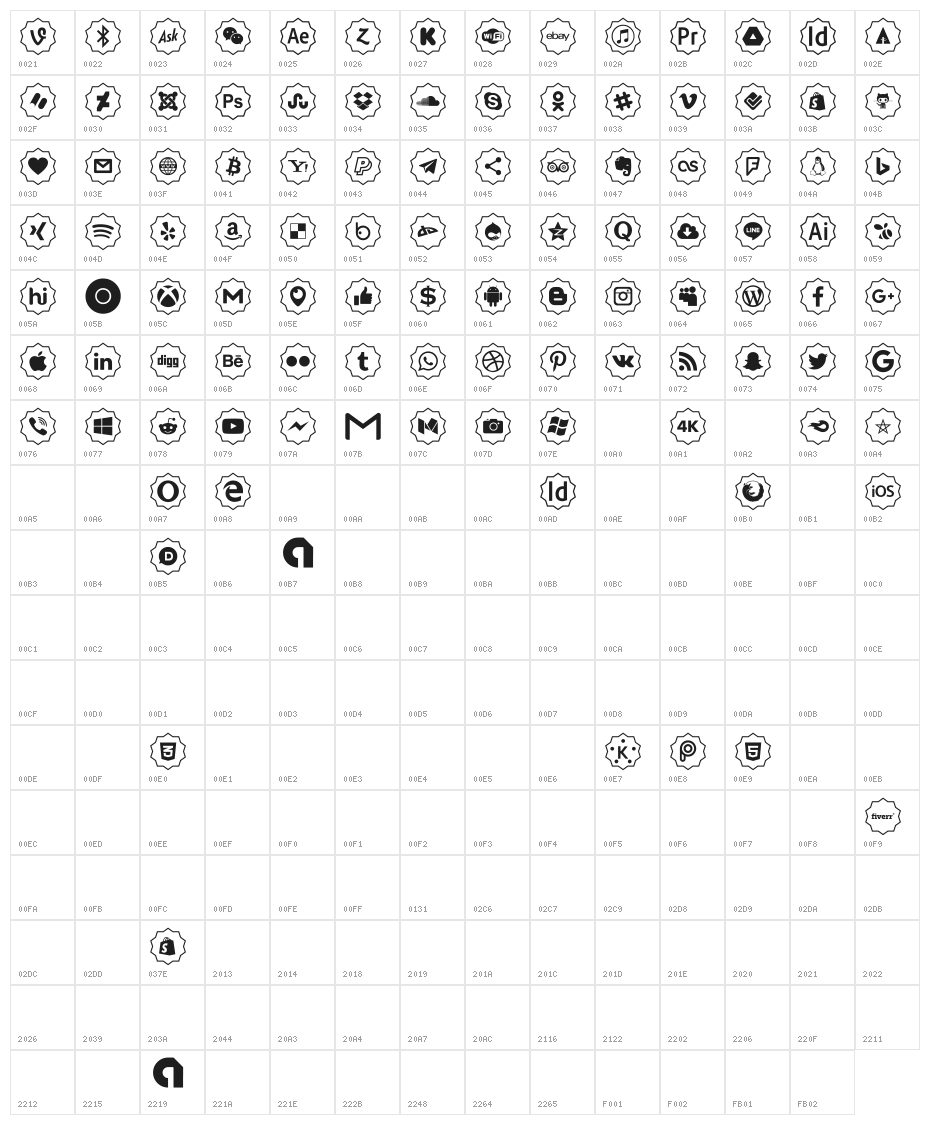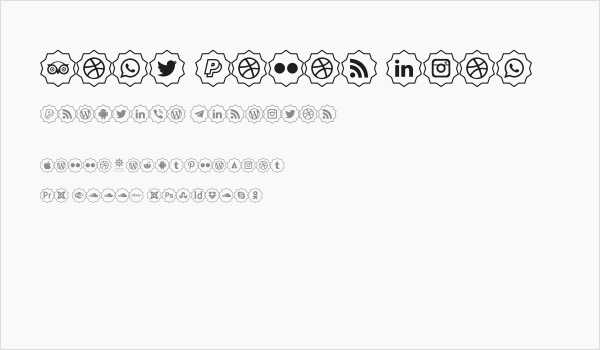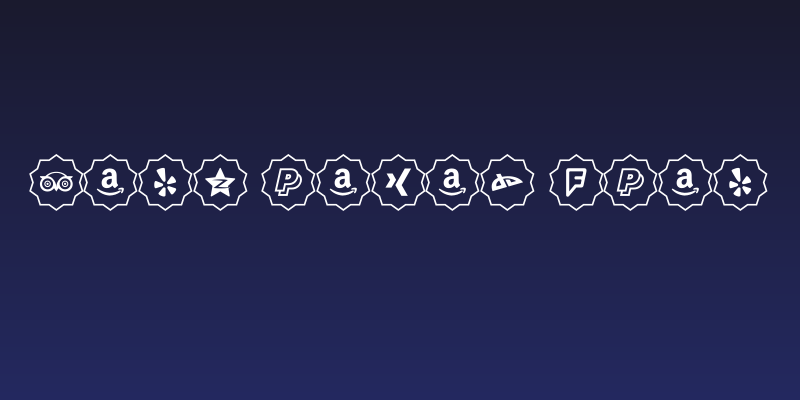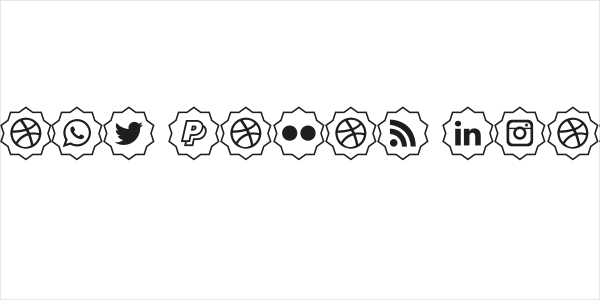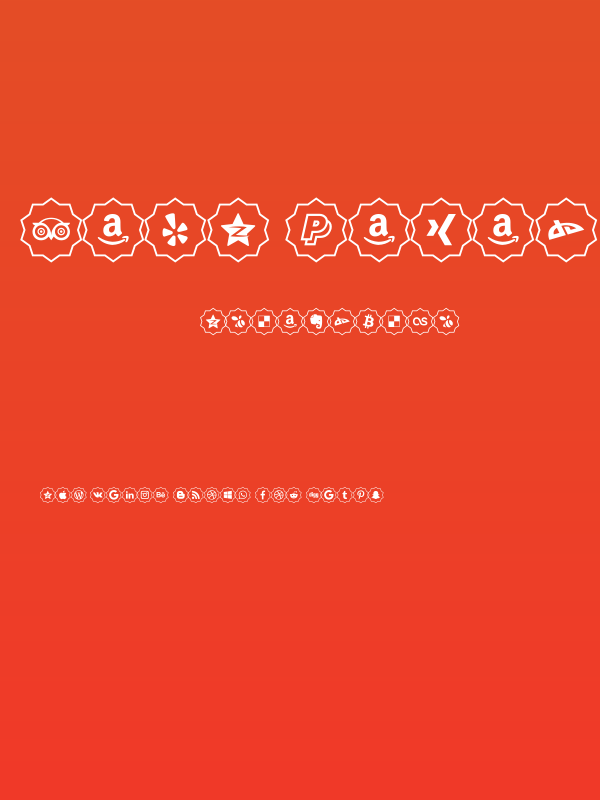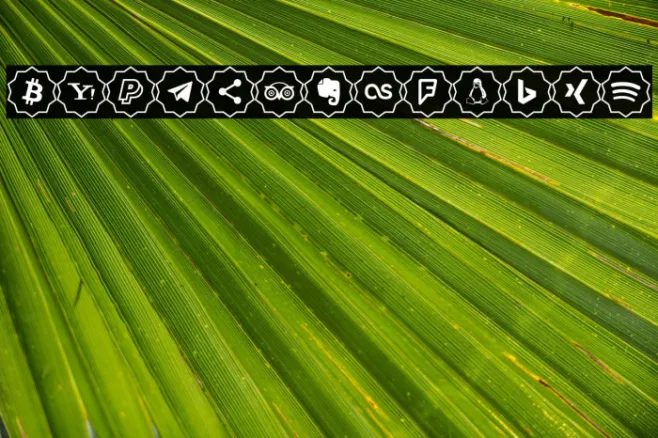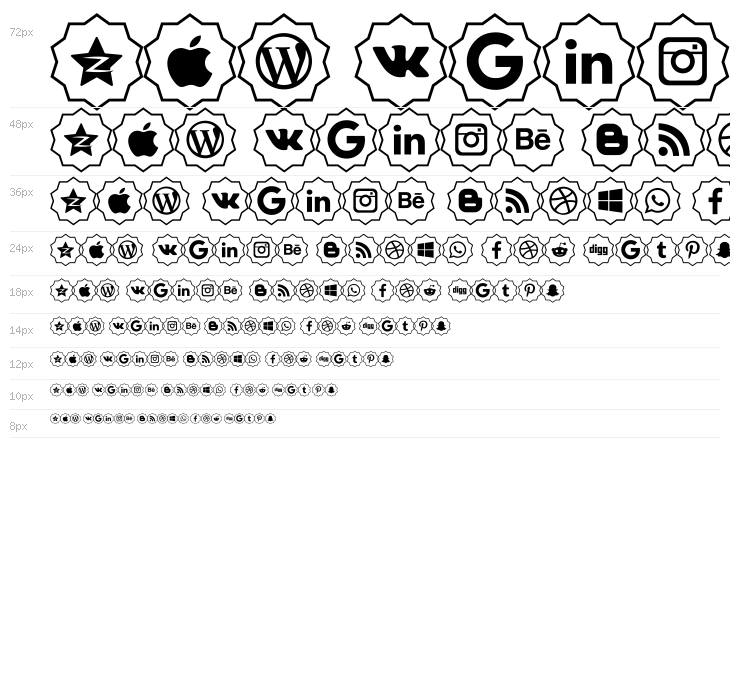
A collection of social media and brand icons, each placed within a jagged, starburst-like outline. The icons are solid black and highly recognizable, designed for clarity and quick identification. The style is geometric and minimal, with consistent line thickness and spacing.
| Use Case | Icons, UI elements, branding, infographics |
| Proposed Projects | Websites, app interfaces, presentations, branding materials, social media graphics. |